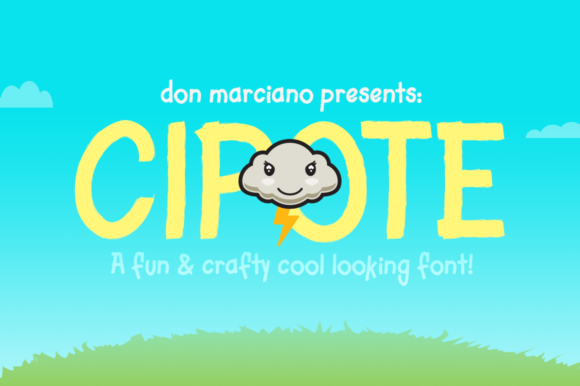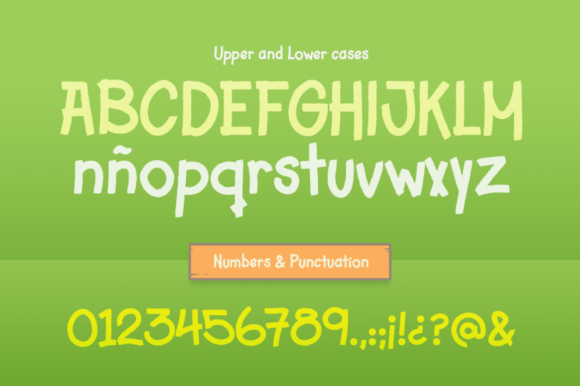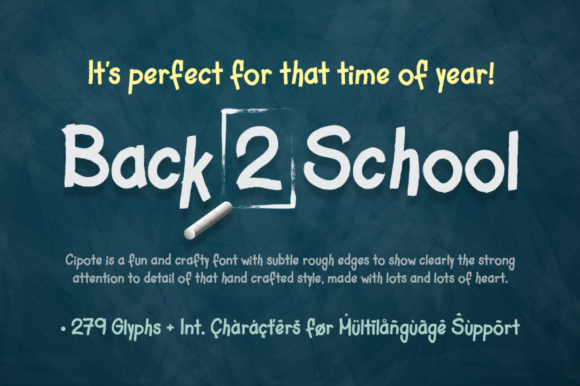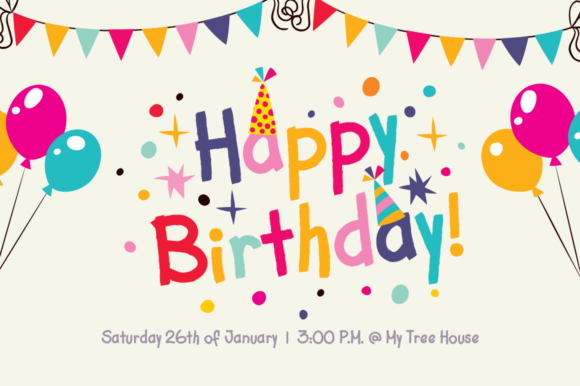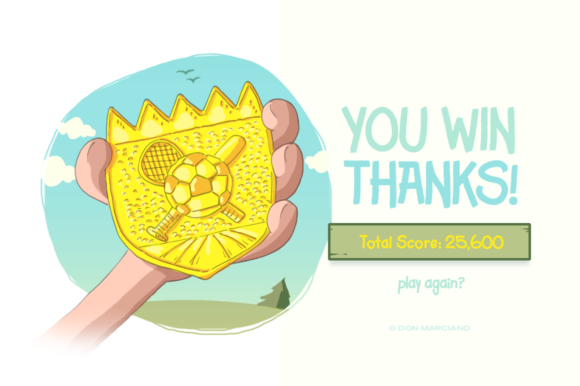
Cipote Font
About Cipote Font
The Cipote is a fun and crafty cool looking font with subtle rough edges to show a strong attention to detail with a hand crafted style.
It has slick and clean lines and comes as a bold typeface that brings together the cool style of early lettering and the modern look of today’s design.